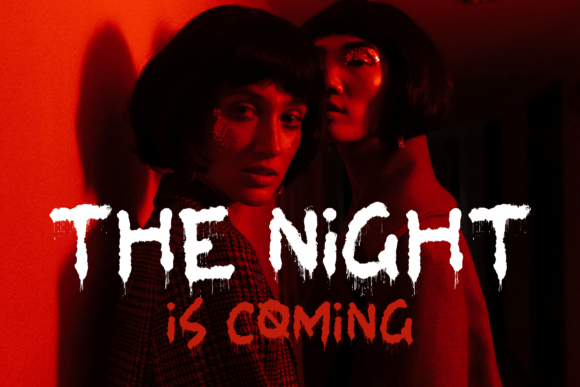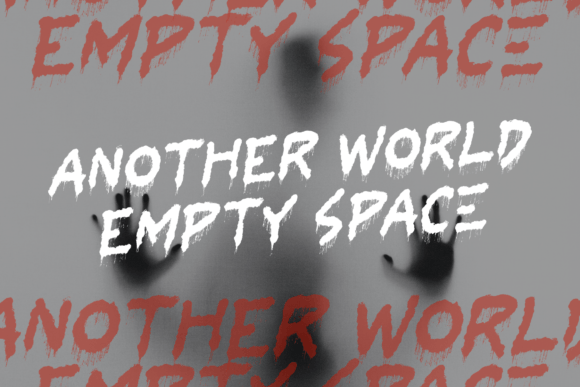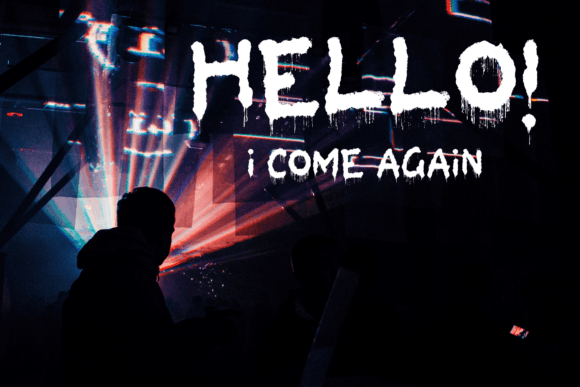
Introduction to Mistery Backbone Font
Have you ever been working on a design project and suddenly you’re hit with a spark of inspiration? You envision a mysterious, eerie atmosphere that draws the viewer in and refuses to let go. For designers, moments like these are the foundation of creativity, and the right font can make all the difference. That’s where the Mistery Backbone Font comes in – a hauntingly beautiful font that adds a touch of spine-tingling suspense to any project.
Whether you’re designing a logo for a horror movie, a spooky homeware collection, or a promotional campaign for a haunted house attraction, the Mistery Backbone Font is the perfect design resource. Its high-quality, transparent background allows for seamless integration into your design, making it a valuable addition to your creative arsenal.
Key Features of Mistery Backbone Font
- Unique, hand-drawn design with a touch of mystery, perfect for creative projects.
- Transparent background, allowing for easy customization and versatility in design.
- Designed to work well at resolutions up to 300 DPI, making it suitable for print and digital applications.
- Part of a growing collection of design resources, perfect for those looking for a cohesive and stylish aesthetic.
Honest Review: Mistery Backbone Font
As a designer, I’m always on the lookout for unique and high-quality design resources to elevate my creative projects. The Mistery Backbone Font caught my attention, and I decided to give it a try.
What works well: ✨ The font is incredibly versatile, with a mix of modern and vintage elements that make it perfect for a wide range of design applications. The free download option is also a huge plus, making it accessible to designers of all levels.
- Transparent background option for seamless layering
- High quality design that’s perfect for print and digital projects
What doesn’t work so well: ⚠️ While the font is incredibly detailed, it can be a bit overwhelming for some projects. Additionally, the font family is relatively small, which might limit its use in certain contexts.
Overall, I’m impressed with the Mistery Backbone Font. Its unique design and high quality make it a valuable addition to any designer’s toolkit. If you’re looking for a versatile font to elevate your creative projects, this is definitely worth checking out.
How to Use Mistery Backbone Font
Designing with a Transparent Background
To achieve a high-quality design with a transparent background, use the Mistery Backbone Font in combination with a transparent background image or a solid color. This will allow you to create a unique and eye-catching design element for your creative project.
The Mistery Backbone Font is ideal for various design projects, including logos, typography-based designs, and creative marketing materials. Its high-quality design and transparent background make it a versatile design resource for any creative project.
To get the most out of the Mistery Backbone Font, experiment with different font sizes, colors, and arrangements to create visually appealing designs. You can also use it in combination with other design elements to add depth and interest to your project.